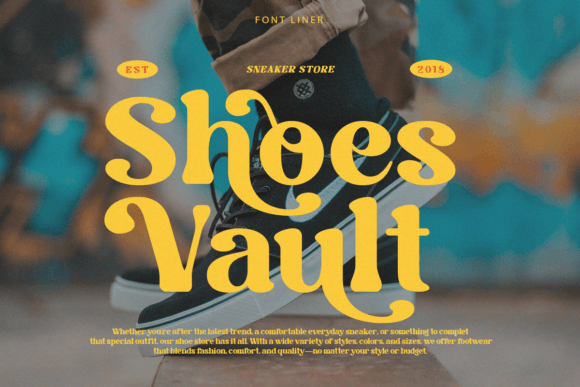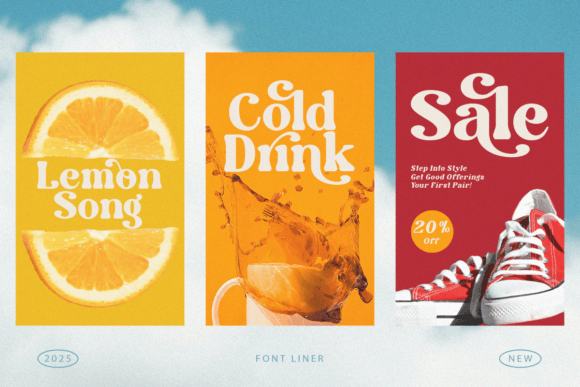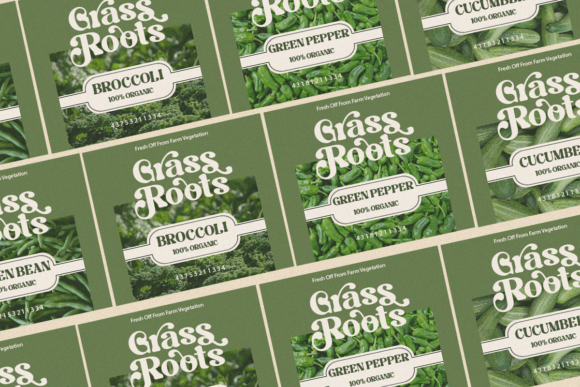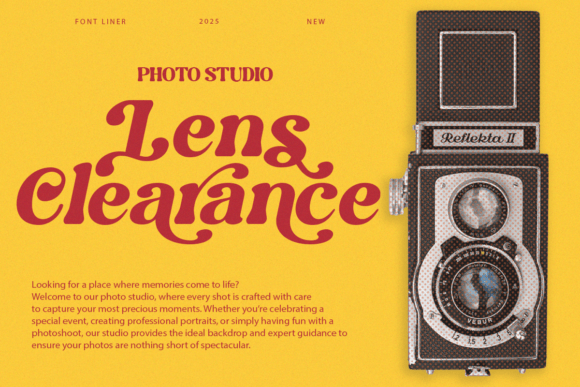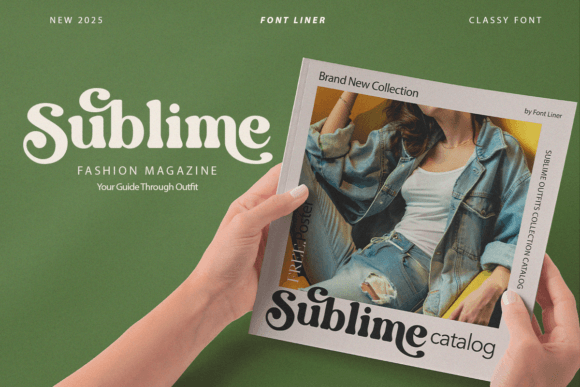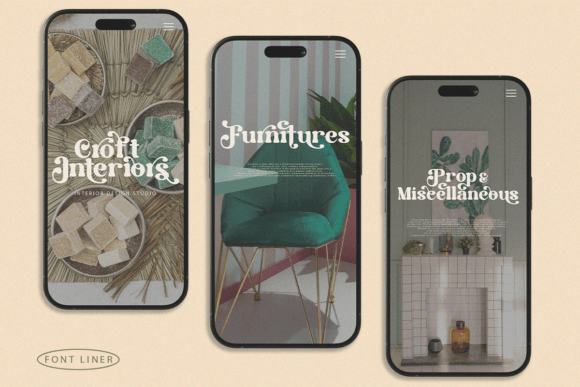
Introduction to Quila Font
Remember that moment when you’re working on a creative project and you just can’t find the right font to bring it all together? The perfect typography can make all the difference between a good design and a great one. For designers, finding a font that captures the essence of a project is a constant quest.
That’s where Quila Font comes in – a Classy Retro Serif Font that will transport your designs to a bygone era with its vintage flair. With its sleek, elegant look, Quila Font is the perfect choice for creating bold, gorgeous headlines and stunning designs that demand attention.
Whether you’re working on a logo, holiday card, wedding invitation, or advertisement, Quila Font is a valuable design resource that will elevate your creative project to new heights. And the best part? You can download Quila Font for free, complete with a transparent background, making it easy to integrate into your high-quality design work.
Key Features of Quila Font
- High-quality, professional font suitable for creative projects, offering a unique and elegant design.
- Features a transparent background, allowing for seamless integration with different design elements and backgrounds.
- Designed with precision and attention to detail, ensuring a high-resolution output suitable for print and digital media.
- Comes in a range of sizes and resolutions, including 300 DPI, to cater to various design requirements.
- Perfect for designers seeking a versatile and stylish font for their creative projects, from logos and branding to typography and graphics.
Honest Review: Quila Font
As a designer, I’m always on the lookout for high-quality fonts to elevate my creative projects. Recently, I stumbled upon the Quila Font, and I’m excited to share my honest review with you.
- High quality: The font is well-designed and has a professional look, making it perfect for serious creative projects.
- Transparent background: The transparent background option is a great feature, allowing for easy integration with other design elements.
- Limited font styles: Quila Font only offers a few font styles, which may limit its versatility for some designers.
- No bold or italic options: While the font is clean and elegant, it would be great to have bold or italic options for added emphasis.
Overall, I’m impressed with Quila Font, and it’s definitely a great addition to my design resource library. While it has some limitations, the free download and high-quality design make it a valuable asset for any designer working on a creative project.
Tips for Getting the Most Out of Quila Font
To maximize the potential of the Quila Font, experiment with different font sizes, colors, and styles. Combine it with other design elements to create a unique and eye-catching visual identity. Don’t be afraid to try new things and push the boundaries of what’s possible with this versatile font.
The Quila Font is ideal for a wide range of creative projects, including social media graphics, presentations, posters, logos, and more. Its high-quality features and transparent background make it a popular choice among designers and artists.